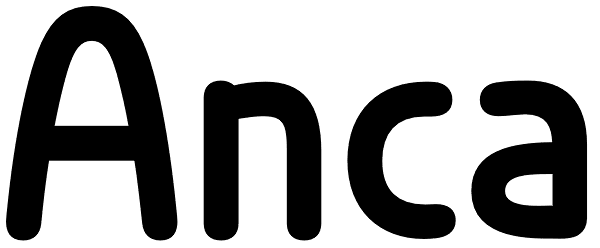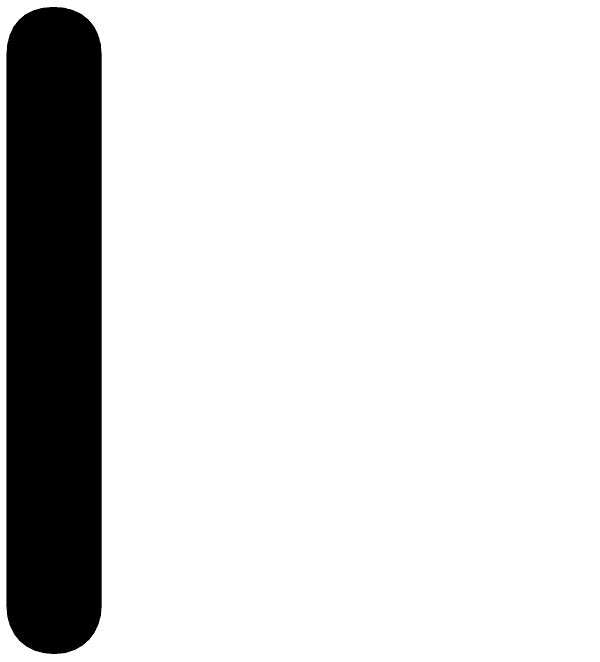
Anca
Anca typeface started as a comission work for Fest Anca, an international animation festival. They needed something to complement the corporate identity of the festival. Inspiration came from a sketch made by my friend long time ago, which had a...
Anca
Anca Marker 02
Anca Basic
Anca Marker 03
Anca Marker 01